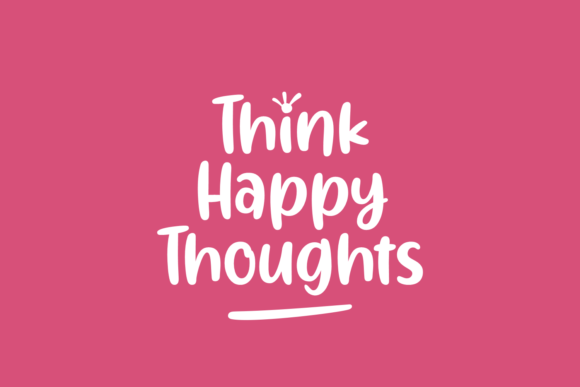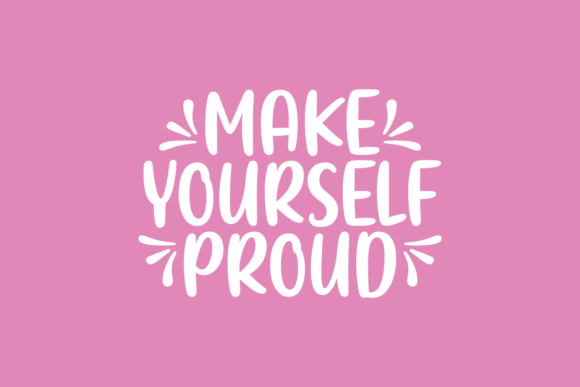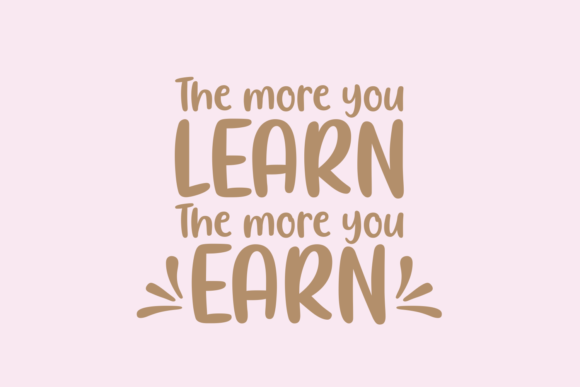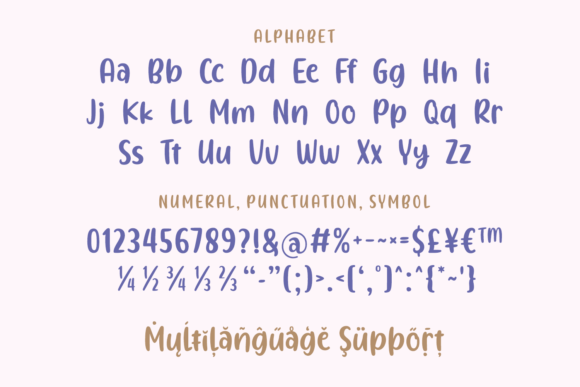
Briella Kailey Font: A Cool and Natural Handwritten Font for Your Design Projects
Are you looking for a font that can add a touch of warmth and personality to your design projects? Look no further than the Briella Kailey font! This beautiful, handwritten font is perfect for designers and crafters who want to create stunning and unique designs that stand out from the crowd. In this article, we’ll take a closer look at the Briella Kailey font, its features, and how you can use it to take your designs to the next level.
What is Briella Kailey Font?
Briella Kailey is a cool and natural handwritten font that is designed to add a joyful and romantic touch to your design projects. This font is perfect for a variety of design ideas, from wedding invitations and social media graphics to blog posts and branding materials. With its gentle and flowing script, Briella Kailey is sure to make your designs look gorgeous and eye-catching.
Features of Briella Kailey Font
The Briella Kailey font has several features that make it a great choice for designers and crafters. Some of its key features include:
- Handwritten script: Briella Kailey has a beautiful, handwritten script that gives it a personal and unique touch.
- Natural and fluid: The font has a natural and fluid feel that makes it perfect for designs that require a touch of elegance and sophistication.
- Versatile: Briella Kailey is a versatile font that can be used for a variety of design projects, from print materials to digital designs.
- Easy to read: The font is easy to read, making it perfect for body text and other applications where readability is important.
How to Use Briella Kailey Font in Your Designs
Using the Briella Kailey font in your designs is easy! Here are a few ideas to get you started:
- Wedding invitations: Briella Kailey is perfect for wedding invitations, save-the-date cards, and other wedding-related designs.
- Social media graphics: Use Briella Kailey to create stunning social media graphics, including Facebook posts, Instagram stories, and Twitter headers.
- Blog posts: Add a touch of personality to your blog posts with Briella Kailey, perfect for headings, subheadings, and other text elements.
- Branding materials: Use Briella Kailey to create unique and eye-catching branding materials, including logos, business cards, and letterheads.
Tips for Getting the Most Out of Briella Kailey Font
Here are a few tips for getting the most out of the Briella Kailey font:
- Pair it with other fonts: Briella Kailey looks great when paired with other fonts, including sans-serif fonts and serif fonts.
- Experiment with colors: Try out different colors and color combinations to find the perfect look for your design.
- Use it consistently: Use Briella Kailey consistently throughout your design to create a cohesive and professional look.
In conclusion, the Briella Kailey font is a beautiful and versatile handwritten font that is perfect for designers and crafters who want to add a touch of warmth and personality to their design projects. With its gentle and flowing script, Briella Kailey is sure to make your designs look gorgeous and eye-catching. Whether you’re creating wedding invitations, social media graphics, or branding materials, Briella Kailey is a great choice. So why not give it a try and see how it can elevate your designs to the next level?